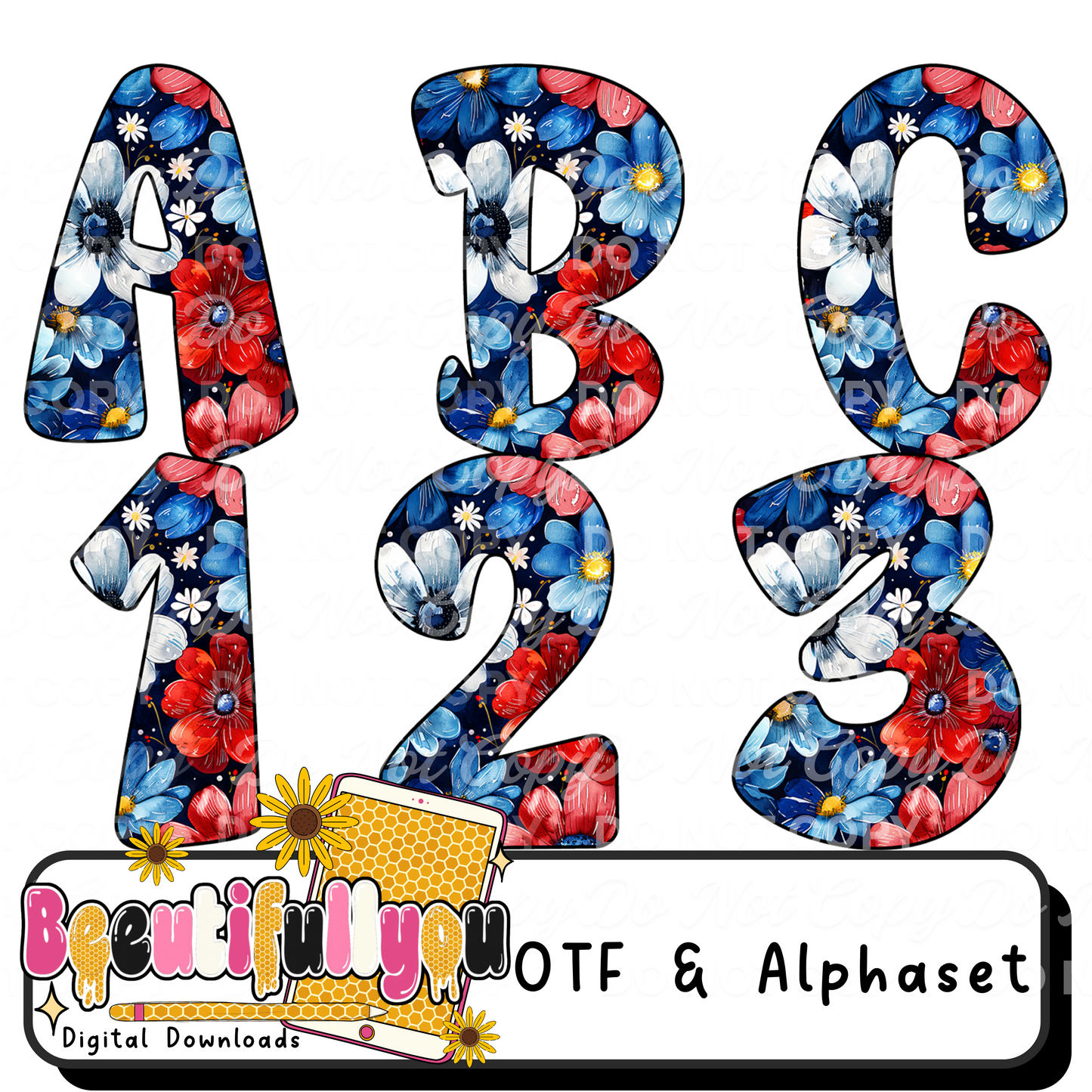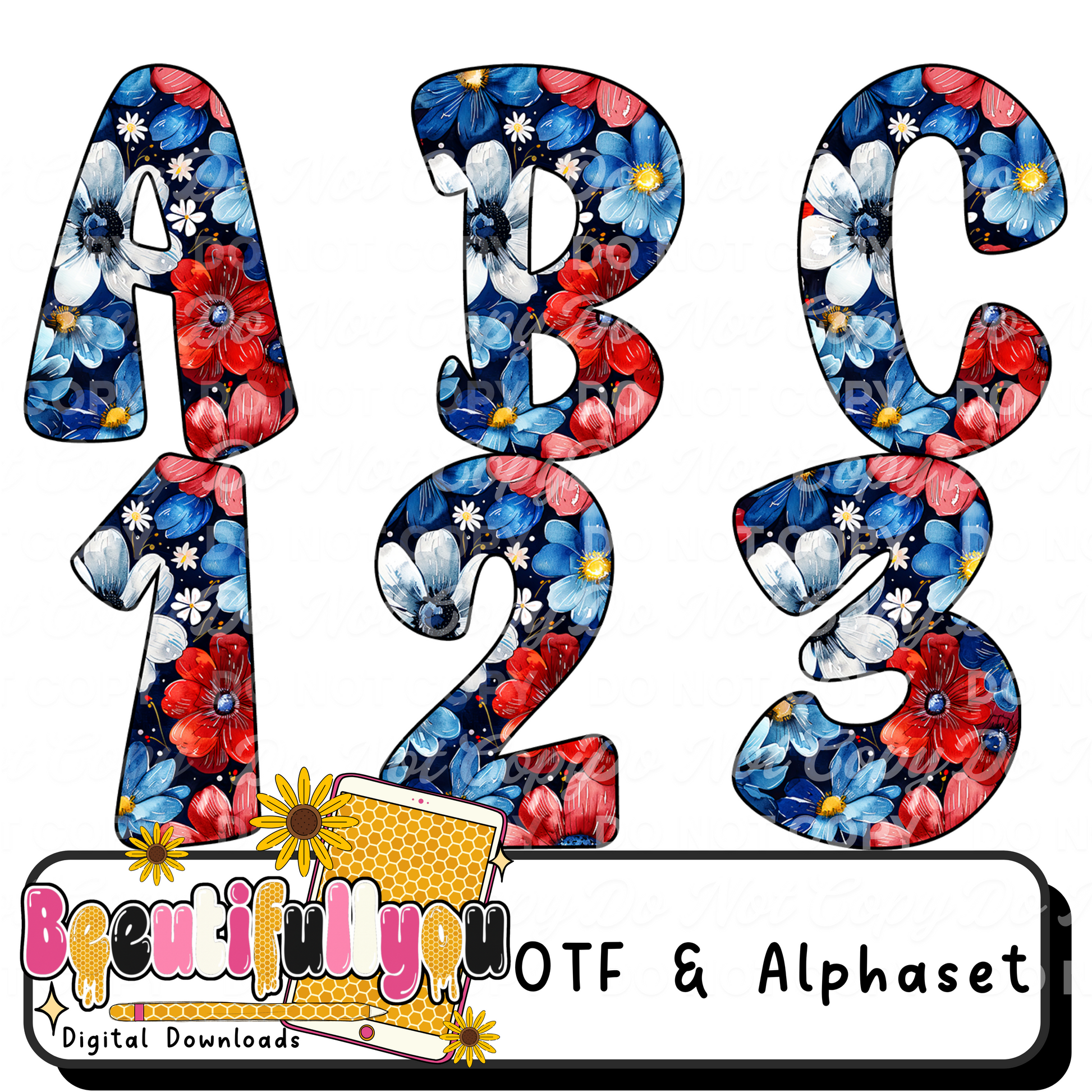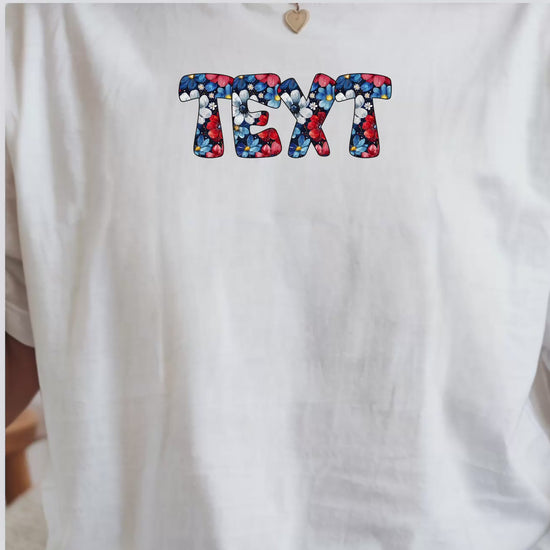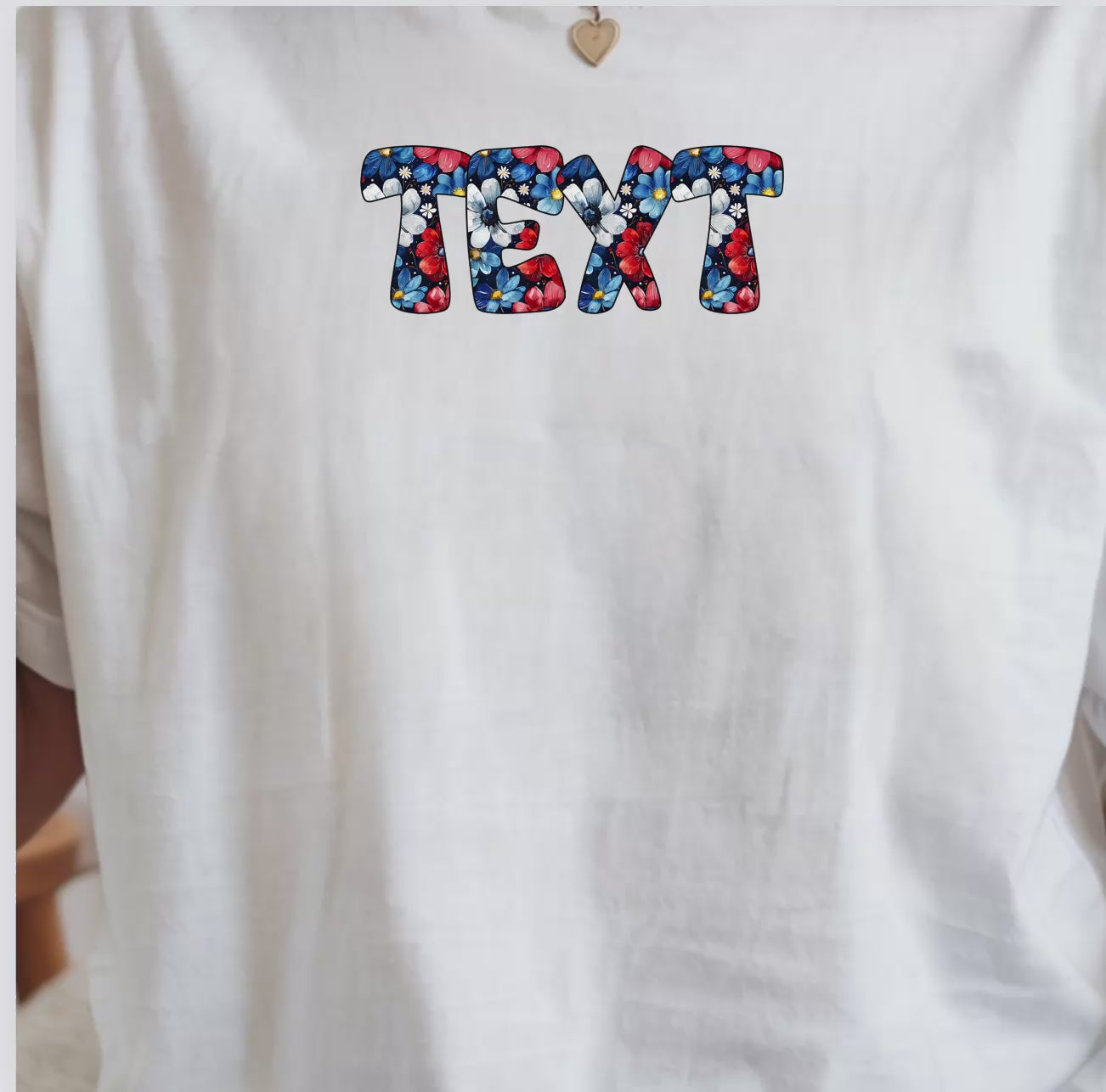
Floral Freedom Alpha | Patriotic Floral Font | OTF & PNG Alphabet | Red White Blue Letters for 4th of July Designs
🇺🇸✨ Bold florals meet patriotic vibes ✨🇺🇸
This Floral Freedom Alpha is the perfect blend of soft florals and red, white & blue energy — giving you a unique, eye-catching look that stands out from basic patriotic designs.
🎨 Design Style
✨ Hand-painted floral pattern
✨ Red, white & blue color palette
✨ Bold, chunky lettering for easy readability
✨ Slightly textured painterly look
• Colors/design are built into each letter